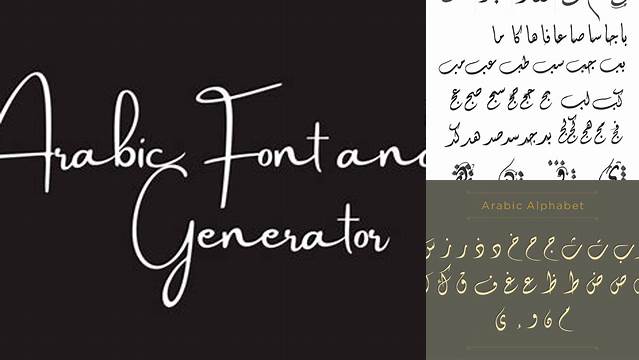
Arabic Fonts: Copy, Paste & Stylish Text Guide
Hey guys! Ever wanted to add a touch of elegance and flair to your digital creations with some beautiful Arabic fonts? Well, you're in the right place! This guide will walk you through everything you need to know about using stylish Arabic fonts, even if you don't know Arabic. We'll cover how to find them, how to copy and paste them, and some of the cool ways you can use them to spice up your projects. So, grab a cup of coffee, get comfy, and let's dive in!
Finding Stylish Arabic Fonts
Finding the perfect Arabic font is the first step in adding that special touch to your projects. Arabic fonts come in a wide array of styles, each with its unique character and appeal. Whether you're looking for something traditional, modern, or completely unique, there's a font out there for you. So where do you start your search? Let's explore some excellent resources.
One of the best places to start is Google Fonts. Google Fonts offers a selection of free, high-quality Arabic fonts that you can easily use on your website or in your design projects. The advantage here is that these fonts are optimized for the web, ensuring they load quickly and look great on any device. To find Arabic fonts on Google Fonts, simply filter by the "Arabic" script. You'll find a variety of styles, from classic Naskh to more contemporary Kufi designs. Each font comes with different weights and styles, so you can find the perfect match for your project's aesthetic.
Another fantastic resource is Adobe Fonts. If you're already using Adobe Creative Cloud, you have access to a vast library of fonts, including many beautiful Arabic typefaces. Adobe Fonts integrates seamlessly with Adobe applications like Photoshop, Illustrator, and InDesign, making it incredibly easy to incorporate stylish Arabic fonts into your designs. The quality of the fonts is top-notch, and the selection is constantly growing, giving you access to the latest and greatest in Arabic typography.
When searching for Arabic fonts, keep in mind the overall tone and style you want to convey. A traditional Naskh font might be perfect for formal invitations or classical texts, while a modern Kufi font could be more suitable for contemporary designs or website headers. Experiment with different fonts and see how they look in your designs. Don't be afraid to mix and match fonts to create a unique and eye-catching effect. With a little bit of exploration, you'll find the perfect Arabic font to elevate your project to the next level.
Copy and Pasting Arabic Fonts
So, you've found the perfect stylish Arabic fonts. Now what? How do you actually get those beautiful characters into your documents, designs, or social media posts? Copying and pasting Arabic fonts might seem tricky at first, but with the right tools and techniques, it's a breeze! This section will guide you through the different methods for copying and pasting Arabic fonts, ensuring your text looks fantastic wherever you use it.
For online platforms that don't fully support Arabic fonts, you might need to use a workaround. Some websites and social media platforms have limited font options, which can cause Arabic text to display in a generic or unattractive font. In these cases, you can use online Arabic font generators to convert your text into a stylish image or Unicode art. These generators allow you to type or paste your Arabic text, select a font, and then generate an image or special Unicode characters that you can copy and paste into your desired platform. While this method preserves the visual style of the font, keep in mind that the text won't be selectable or editable.
Another useful tool is character maps. Both Windows and Mac operating systems come with built-in character maps that allow you to find and copy individual Arabic characters. On Windows, you can find the Character Map by searching for it in the Start Menu. On Mac, you can access the Character Viewer from the Edit menu in most applications. These tools display all the characters available in a particular font, allowing you to select and copy the ones you need. This is especially helpful if you only need a few specific characters or if you're working with a font that's not fully supported by your text editor.
When copying and pasting Arabic fonts, always double-check the text to ensure it displays correctly. Sometimes, characters can get mixed up or display incorrectly due to encoding issues. If you encounter any problems, try changing the font, adjusting the text encoding settings, or using a different method for copying and pasting. With a little bit of troubleshooting, you'll be able to get your Arabic text looking just the way you want it.
In conclusion, stylish Arabic fonts can add a touch of elegance and cultural richness to a wide range of projects. Whether you're a graphic designer, social media marketer, or website owner, incorporating Arabic typography into your work can help you stand out from the crowd and connect with a wider audience. With the right tools and techniques, you can easily find, copy, and use stylish Arabic fonts to create stunning designs that are both visually appealing and culturally relevant. So go ahead, explore the world of Arabic typography and see what you can create!